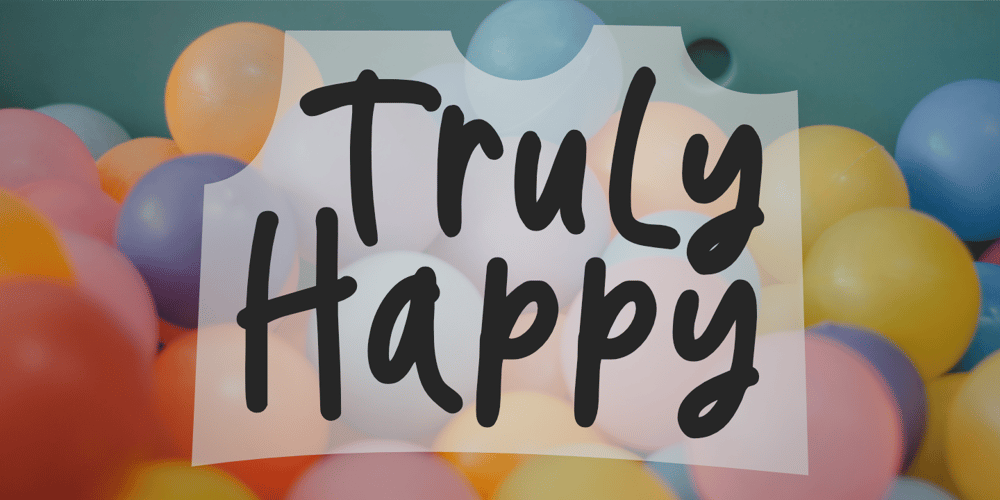
Truly Happy
Truly Happy font
Truly Happy Font Family was designed by Nurul Hidayani and published by Olivetype. Truly Happy contains 1 styles and family package options. Truly Happy is an ideal font choice for anyone looking to add a bit of fun and playfulness to their projects. This handwritten font has a light and airy feel, making it ideal for any creative project. With its cute and whimsical details, Truly Happy will surely bring a smile to everyone who sees it.So what’s included : Basic Latin Uppercase and Lowercase Numbers, symbols, and punctuations Multilingual Support. PUA Encoded and fully accessible without additional design software Simple Installations Works on PC & Mac Cheers.